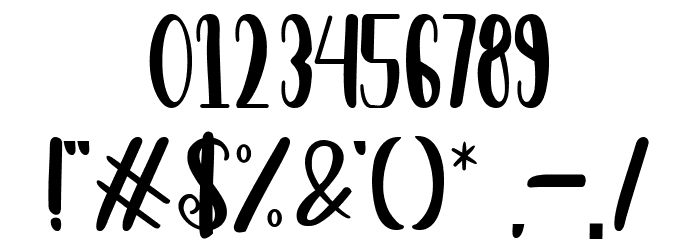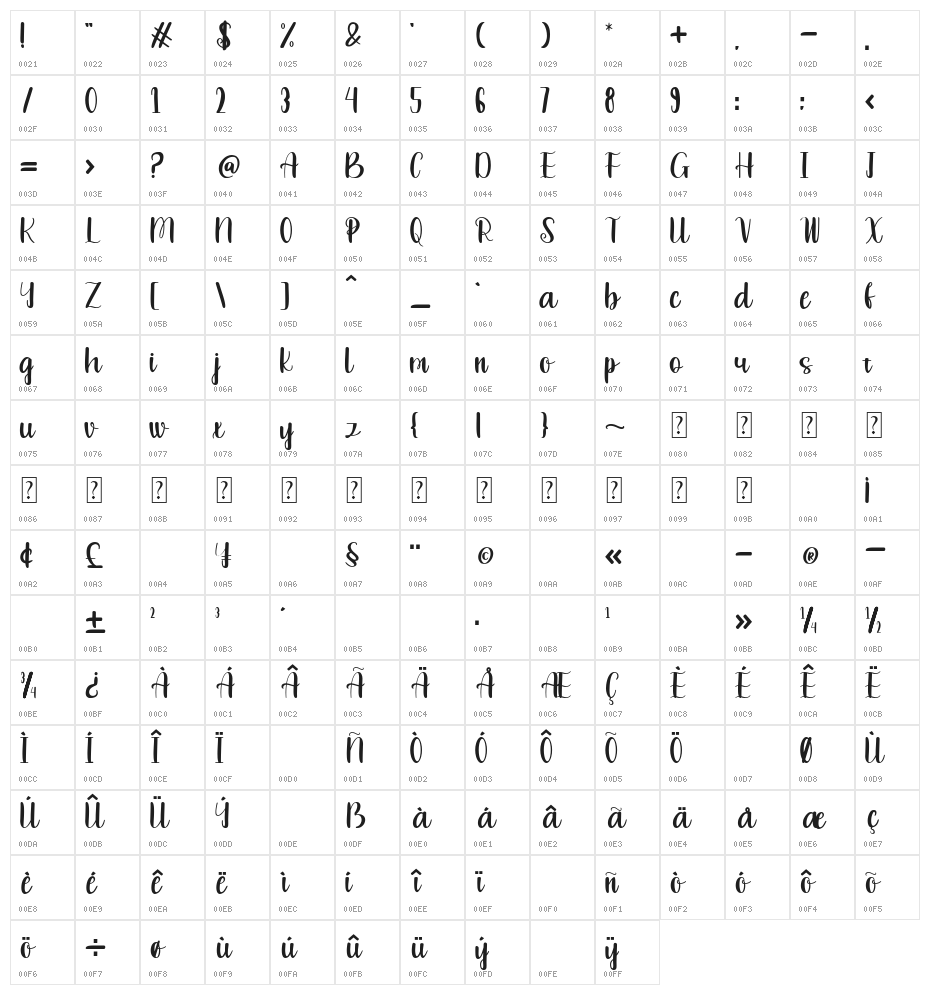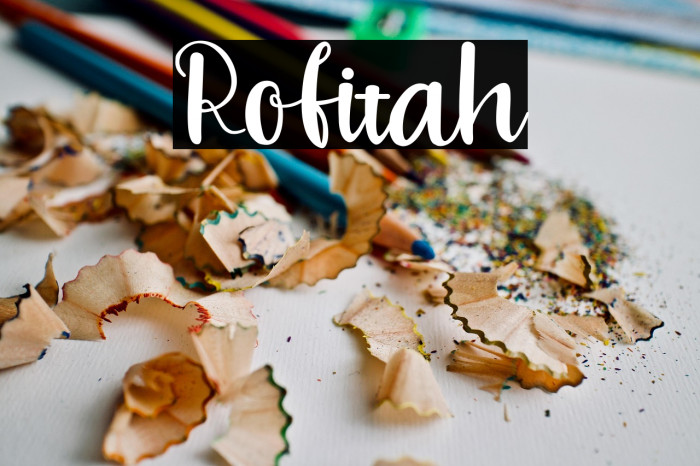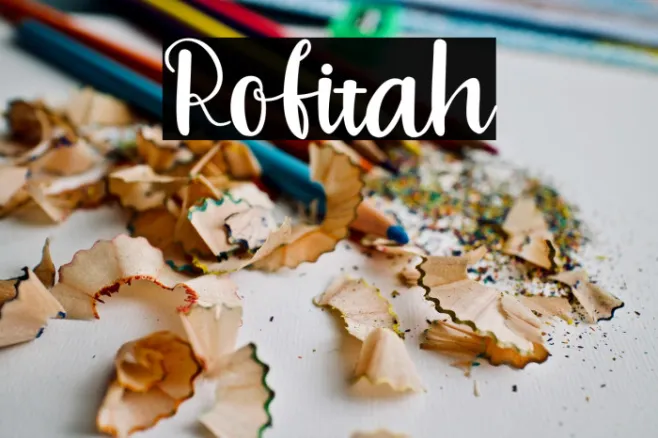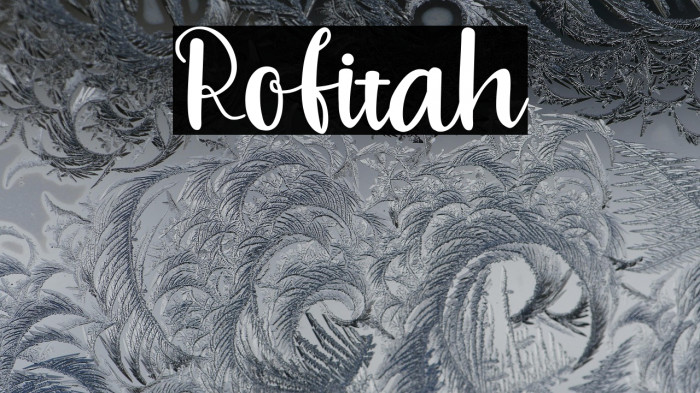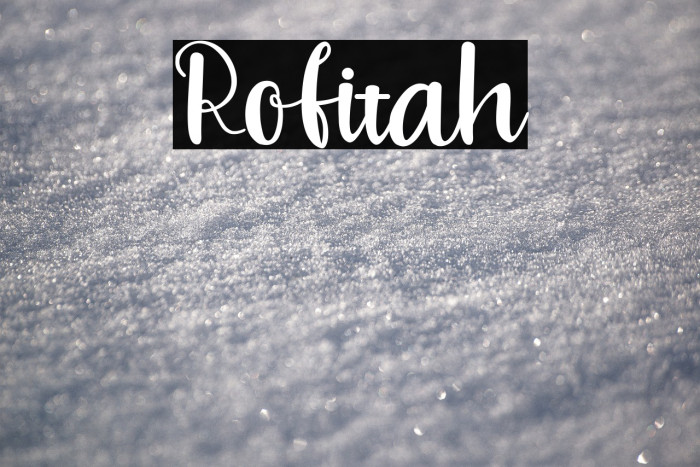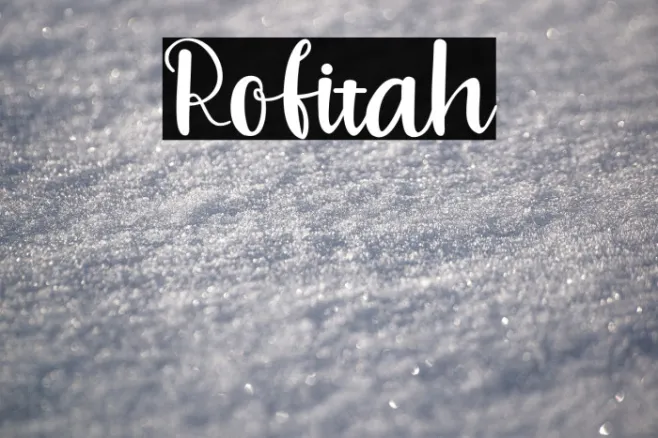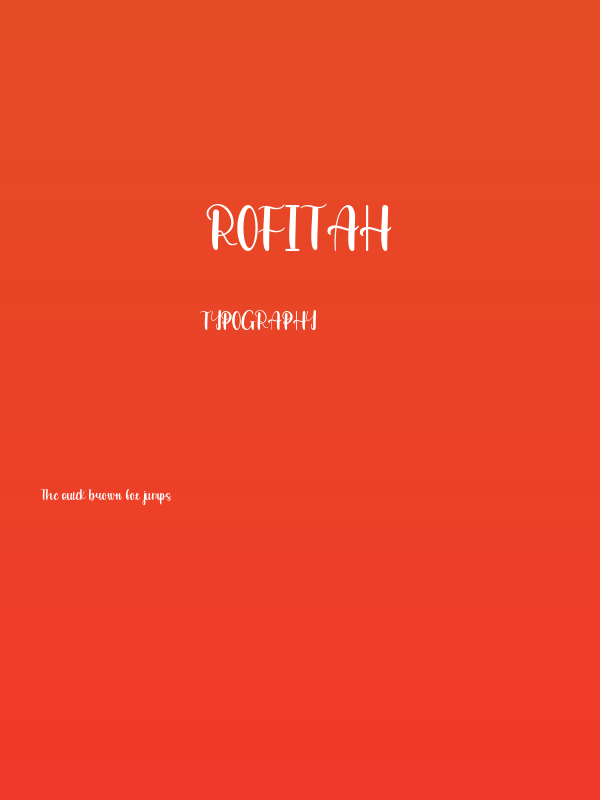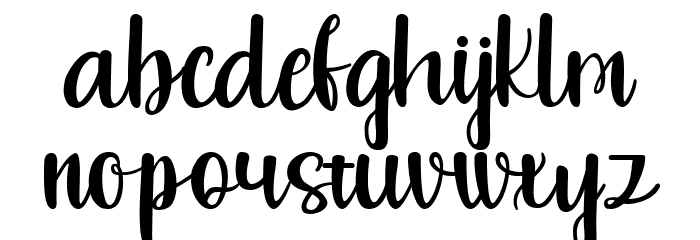
Rofitah Font
Rofitah Description
This font features a lively and expressive script style, characterized by its flowing, cursive letterforms. The uppercase letters are bold and dynamic, with a playful yet elegant flair, while the lowercase letters maintain a consistent rhythm and fluidity. The numerals are distinct and maintain the same energetic style, making them easily readable. Special characters are creatively integrated, adding to the font's versatility. The overall design is both modern and decorative, making it suitable for a variety of creative applications.
| Proposed Projects | Ideal for wedding invitations, greeting cards, branding projects, and social media graphics. |